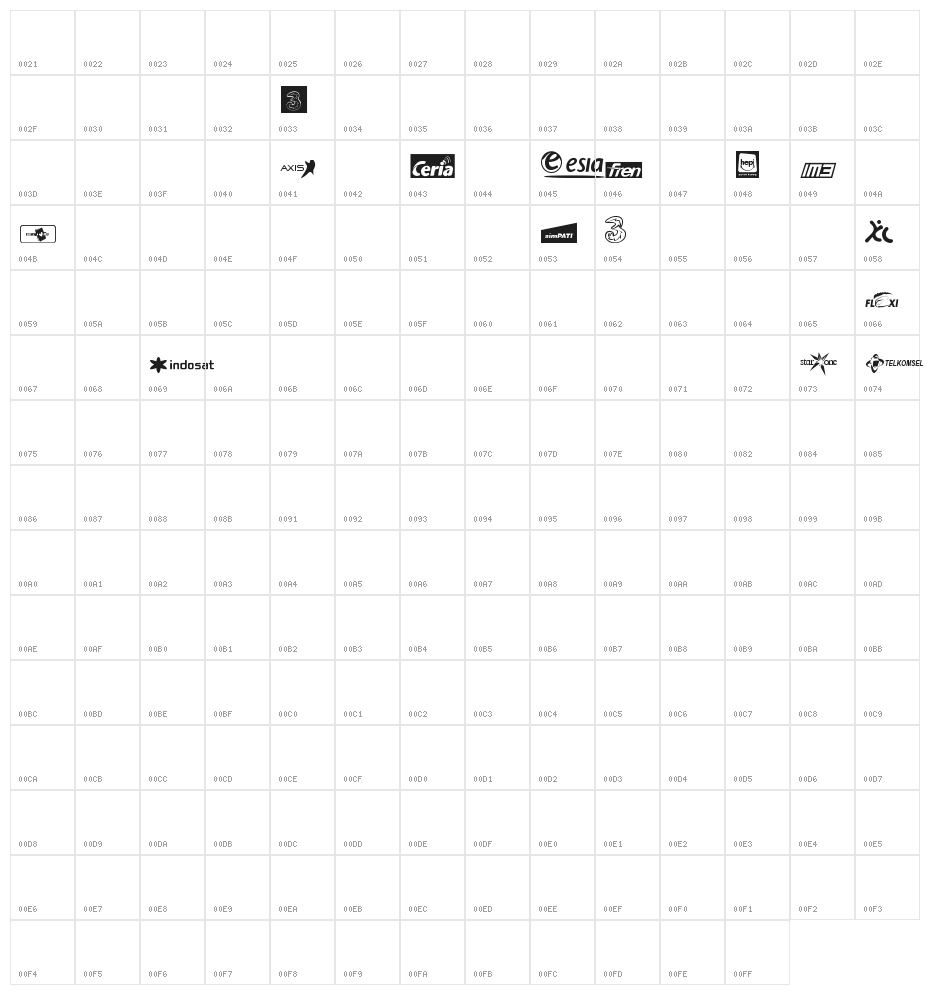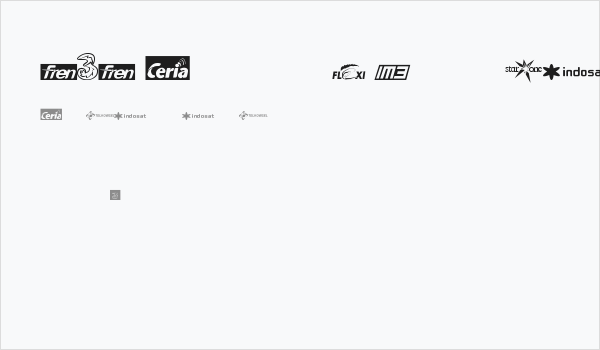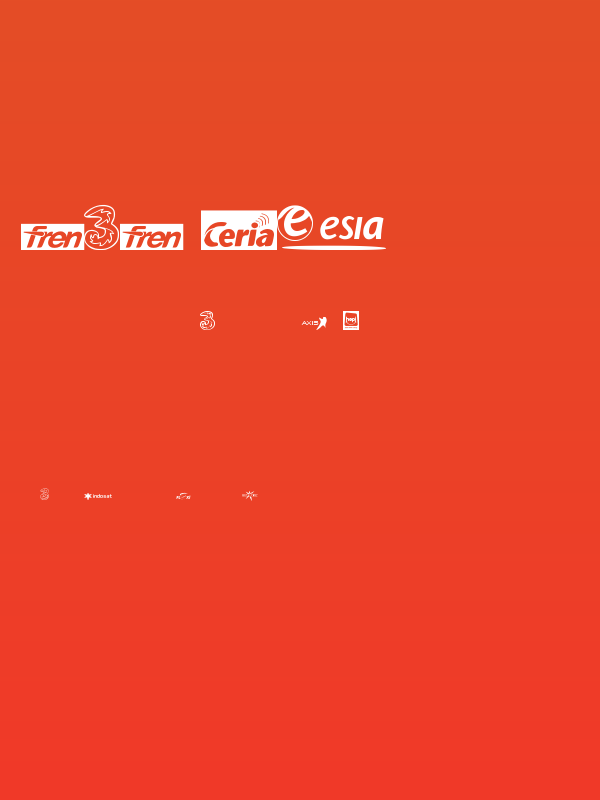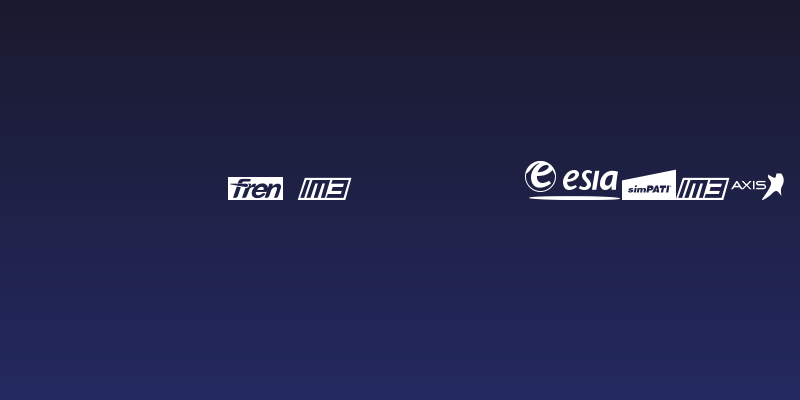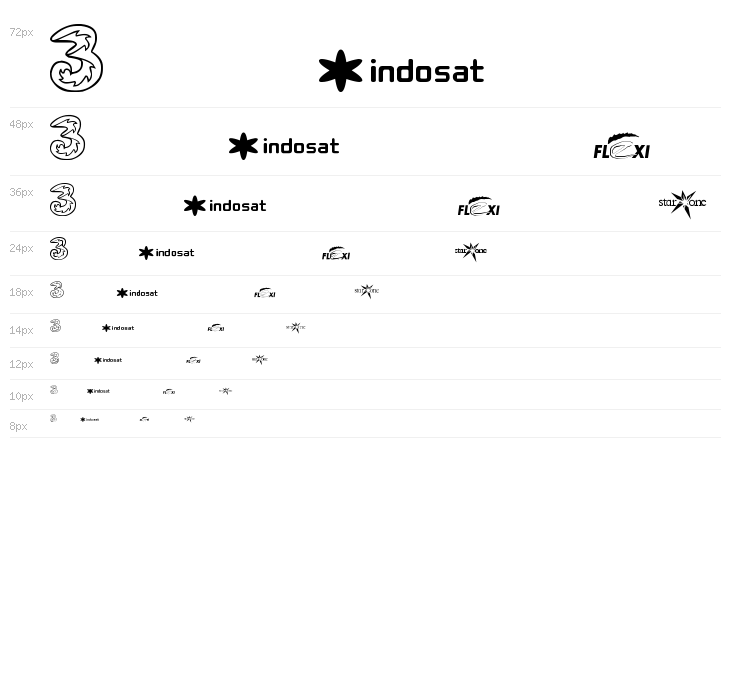
FTF Cellul@r of Indonesiana Island Font
FTF Cellul@r of Indonesiana Island Description
A collection of various logotypes with diverse font styles, including bold sans-serif, italicized, and decorative elements, often paired with unique graphic icons. The fonts range from rounded and playful to geometric and modern, with some featuring custom letterforms and stylized accents.
Overall StyleModern, Decorative, Playful
Use CaseLogos, Branding, Headings
Proposed ProjectsBranding, telecommunications logos, advertising, promotional materials, packaging.